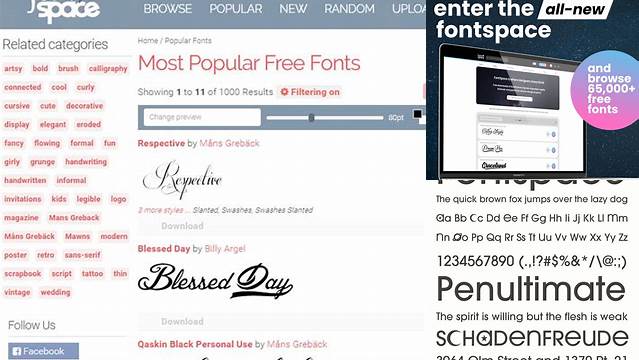
Fontspace Fonts: Your Ultimate Guide To Free Fonts
Hey guys! Are you looking for some awesome fonts to spice up your designs? Well, you've come to the right place! In this guide, we're diving deep into the world of Fontspace fonts, exploring everything from what Fontspace is to how you can make the most of its vast library of free fonts. So, buckle up and let's get started!
1. What is Fontspace?
Fontspace is a treasure trove for designers, hobbyists, and anyone who loves typography. It's a website that offers a massive collection of free fonts, making it a go-to resource for finding the perfect typeface for any project. Whether you're working on a logo, a website, a presentation, or even just a fun personal project, Fontspace has something for everyone. The sheer variety of fonts available is staggering, ranging from elegant scripts to bold, modern sans-serifs. Navigating Fontspace is also super easy, thanks to its intuitive interface and robust search features. You can browse by category, style, or even specific designers, making it a breeze to find exactly what you need. Plus, many fonts come with different weights and styles, giving you even more flexibility in your design work. The best part? Most of these fonts are free for personal use, and many are even free for commercial use, which is a huge win for freelancers and small business owners. So, if you're looking to elevate your projects with some stunning typography without breaking the bank, Fontspace is definitely worth checking out. It's a fantastic community-driven platform where designers from around the world share their creations, making it a vibrant hub for font lovers. You'll not only find fonts but also inspiration and a sense of community. Seriously, the possibilities are endless, and the quality of fonts you can find is often surprisingly high. It's like a candy store for typography enthusiasts, and once you start exploring, you'll likely find yourself spending hours discovering new favorites. So, next time you're in need of that perfect font, remember Fontspace – it might just be the game-changer you've been looking for!
4. Popular Font Styles Available on Fontspace
Fontspace is like a candy store for font lovers, offering a dizzying array of styles to suit any design need. Whether you're looking for something elegant and classic or bold and modern, you're sure to find it here. Let's dive into some of the most popular font styles available on Fontspace. First up, we have Serif fonts. These fonts are characterized by the small decorative strokes (serifs) at the ends of the letters, giving them a traditional and formal look. They're perfect for projects that need a touch of sophistication, like books, magazines, and official documents. Think of classics like Times New Roman or Garamond – those are your quintessential serif fonts. Next, we have Sans-Serif fonts, which, as the name suggests, don't have those little serifs. They have a cleaner, more modern appearance, making them ideal for websites, logos, and other contemporary designs. Fonts like Arial, Helvetica, and Open Sans are popular sans-serif choices. Then there are Script fonts, which mimic the fluid strokes of handwriting. These fonts are beautiful for invitations, greeting cards, and adding a personal touch to your designs. But, a word of caution: script fonts can be tricky to read in large blocks of text, so it's best to use them sparingly. If you're looking for something a bit more playful and unique, check out Display fonts. This category includes a wide range of styles, from bold and blocky to quirky and whimsical. Display fonts are great for headlines, posters, and anything that needs to grab attention. They're not typically suitable for body text, but they can add a lot of personality to your designs. For a vintage or retro vibe, Decorative fonts are the way to go. These fonts often have unique flourishes and embellishments, making them perfect for projects that need a touch of nostalgia. Think of old-fashioned signage or vintage advertisements – those often use decorative fonts. And finally, we have Monospace fonts, where each letter takes up the same amount of horizontal space. This gives them a distinctive, typewriter-like appearance, making them popular for coding, technical documents, and adding a touch of retro coolness to your designs. Seriously, guys, with such a diverse range of styles available on Fontspace, you're bound to find the perfect font for any project. It's just a matter of exploring and discovering your favorites!
5. Finding the Right Font for Your Project on Fontspace
Finding the right font for your project can feel like searching for a needle in a haystack, but Fontspace makes the process much easier and more enjoyable. With its vast library of fonts, you're sure to find something that fits your vision, but knowing how to navigate the site and narrow down your options is key. First off, think about the overall tone and style you're aiming for. Is your project modern and minimalist, or more traditional and elegant? Are you going for playful and whimsical, or serious and professional? Identifying the mood you want to convey will help you choose the right font style. If you're working on a website, for example, you might lean towards a clean, readable sans-serif font for body text and a bolder display font for headlines. For a wedding invitation, a script or serif font might be more appropriate. Fontspace's categories and tags are your best friends in this process. You can browse fonts by style (serif, sans-serif, script, display, etc.), or use tags like "vintage," "retro," "modern," or "handwritten" to filter your results. This can quickly narrow down your options and save you time. The search bar is also a powerful tool. If you have a specific idea in mind, try typing in keywords related to the font's characteristics, such as "bold," "condensed," or "rounded." You can even search for fonts that resemble a particular typeface you like. Another helpful feature on Fontspace is the font preview. When you click on a font, you'll see a preview of how it looks in different sizes and styles. You can even type in your own text to see how it will appear in your project. This is super useful for ensuring that the font is legible and fits your design. Don't be afraid to experiment and try out different fonts. Sometimes, the perfect font is one you didn't expect. Save your favorites to a collection so you can easily compare them later. And remember, the license is crucial. Always make sure the font you choose is licensed for your intended use, whether it's for personal or commercial projects. Seriously, guys, with a little bit of planning and exploration, you'll be able to find the perfect font on Fontspace to make your project shine!
7. Fontspace and Personal Projects
Fontspace is an absolute goldmine when it comes to finding fonts for personal projects! Whether you're crafting invitations for a party, designing your own greeting cards, scrapbooking, or just want to add a personal touch to your social media posts, Fontspace has you covered. The best part? Many of the fonts are free for personal use, meaning you can unleash your creativity without spending a dime. For personal projects, the possibilities are endless. You can experiment with different font styles to create unique and eye-catching designs. If you're planning a birthday bash, why not use a playful script font for the invitations? Or, if you're putting together a photo album, a classic serif font might be the perfect choice for adding captions and titles. Fontspace's vast library makes it easy to find just the right font for any occasion. When browsing Fontspace for personal projects, you'll notice that many fonts are labeled as "Free for Personal Use." This means you can download and use the font for any non-commercial purpose. That includes things like creating gifts for friends and family, designing your own stationery, or even sprucing up your personal blog or website. However, it's always a good idea to double-check the license before you download a font, just to be sure. Some designers may have specific restrictions, even for personal use. For example, they might require you to give them credit if you use their font in a publicly displayed project. One of the great things about Fontspace is the sheer variety of fonts available. You can find everything from elegant calligraphy fonts to bold, modern sans-serifs, and everything in between. This makes it easy to find fonts that match your personal style and the tone of your project. And, because so many of the fonts are free, you can afford to experiment and try out different options until you find the perfect fit. Seriously, guys, Fontspace is a fantastic resource for anyone who loves DIY projects and creative pursuits. It's a treasure trove of beautiful fonts that can help you add a personal touch to everything you create. So go ahead, explore the site, download some fonts, and let your imagination run wild!
8. Font Bundles on Fontspace
Font bundles on Fontspace are like hitting the jackpot for font enthusiasts and designers! They offer a fantastic way to get a collection of high-quality fonts at a discounted price. Imagine getting a whole set of amazing typefaces for the cost of just a few individual fonts – that's the magic of font bundles. Fontspace regularly features font bundles from various designers, and these bundles often include a mix of different styles and weights, giving you a ton of versatility for your projects. You might find a bundle with elegant script fonts, bold display fonts, and clean sans-serifs, all in one package. This can be incredibly useful if you're working on multiple projects or want to expand your font library. One of the biggest advantages of font bundles is the cost savings. Buying fonts individually can add up quickly, especially if you need several different typefaces for a project. Bundles offer a much more affordable way to get a variety of fonts, making them a great option for freelancers, small business owners, and anyone on a budget. But, it's not just about the price. Font bundles also offer the convenience of getting a curated set of fonts that often complement each other. Designers put these bundles together with a specific theme or style in mind, so you can be confident that the fonts will work well together in your designs. This can save you time and effort in trying to find individual fonts that coordinate. When you're browsing font bundles on Fontspace, it's important to pay attention to the licensing. Just like with individual fonts, font bundles can have different licenses for personal and commercial use. Make sure the bundle you choose includes a license that covers your intended use, whether it's for personal projects, commercial work, or both. It's also a good idea to check out the individual fonts included in the bundle before you buy it. Fontspace usually provides previews of each font, so you can get a sense of whether they fit your style and needs. This will help you make sure the bundle is a good investment for your design toolkit. Seriously, guys, font bundles on Fontspace are a fantastic opportunity to score some amazing fonts at a great price. Keep an eye out for new bundles, and you might just find your next favorite typeface!
9. Fontspace Alternatives: Other Font Websites
While Fontspace is a fantastic resource for free fonts, it's always good to know your options! The world of typography is vast and there are several other websites where you can find high-quality fonts, both free and premium. Exploring these Fontspace alternatives can help you discover even more unique typefaces and expand your design toolkit. One popular alternative is Google Fonts. This is a library of open-source fonts that are free to use for both personal and commercial projects. Google Fonts offers a wide variety of styles, and the fonts are optimized for web use, making them a great choice for websites and online applications. Plus, integrating Google Fonts into your website is super easy, thanks to Google's simple API. Another excellent option is DaFont. Like Fontspace, DaFont offers a huge selection of free fonts, with a focus on display and decorative styles. You'll find everything from quirky handwritten fonts to bold, attention-grabbing typefaces. DaFont is a great place to look if you need a font for a poster, headline, or any project where you want to make a statement. MyFonts is a premium font marketplace that offers a vast collection of professional-quality fonts. While MyFonts isn't free, it's a great resource if you're looking for unique and high-end typefaces. They also have a helpful feature called "WhatTheFont," which allows you to identify a font from an image. If you're working on a branding project, Adobe Fonts is another excellent option to consider. Adobe Fonts is included with an Adobe Creative Cloud subscription and offers a wide range of fonts from top foundries. The fonts are fully integrated with Adobe Creative Suite, making it easy to use them in your design projects. For a mix of free and premium fonts, Creative Market is a great place to explore. Creative Market offers a wide variety of design resources, including fonts, graphics, templates, and more. You can find some fantastic deals on font bundles and individual typefaces here. Seriously, guys, there's a whole universe of font websites out there, and each one has something unique to offer. Exploring these Fontspace alternatives can help you find the perfect fonts for your projects and take your designs to the next level!
10. Fontspace for Web Design
Fontspace can be a web designer's secret weapon, offering a vast array of fonts to make your websites stand out. Choosing the right fonts for your website is crucial, as typography plays a huge role in both the aesthetics and the user experience. A well-chosen font can enhance your brand identity, improve readability, and create a visually appealing design. When using Fontspace for web design, there are a few things to keep in mind. First and foremost, consider readability. While a fancy display font might look great in a headline, it might not be the best choice for body text. For longer blocks of text, you'll want to choose a font that's easy on the eyes, such as a clean sans-serif or a classic serif font. Google Fonts is a great resource for web-friendly fonts, as they're optimized for online use and load quickly. However, Fontspace also offers many fonts that work well on the web, so it's worth exploring your options. When selecting fonts for your website, think about hierarchy and visual interest. Use different font styles and sizes to create a clear visual hierarchy and guide your visitors' eyes through the page. For example, you might use a bold display font for headings, a slightly smaller sans-serif font for subheadings, and a readable serif font for body text. This will make your content more engaging and easier to digest. Page load speed is another important factor to consider. Some fonts can be quite large in file size, which can slow down your website's loading time. This is especially true for custom fonts. To optimize your website's performance, try to use web-optimized fonts and avoid using too many different font styles on a single page. Many web designers choose to pair fonts to create a balanced and visually appealing design. Font pairing involves using two or more different fonts that complement each other. For example, you might pair a bold sans-serif font with a classic serif font, or a script font with a clean sans-serif. There are many resources online that offer font pairing suggestions, so you don't have to reinvent the wheel. Seriously, guys, Fontspace can be a valuable tool for web designers, but it's important to choose your fonts carefully and consider factors like readability, hierarchy, and page load speed. With the right fonts, you can create a website that's both beautiful and user-friendly.